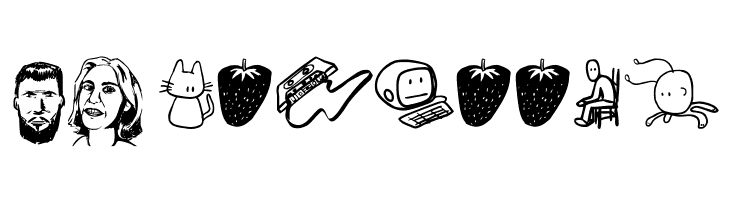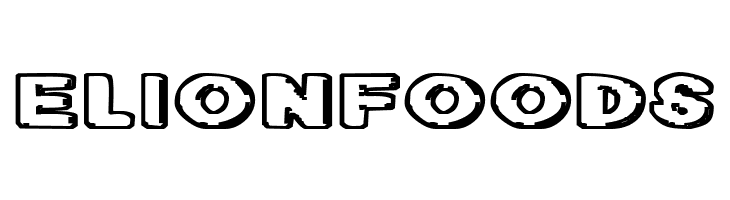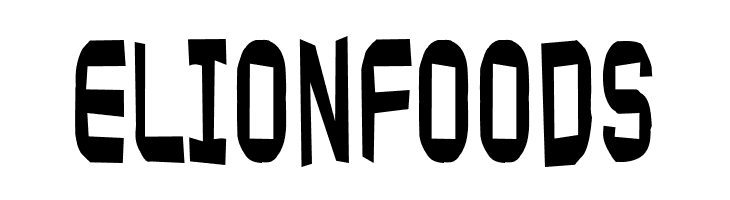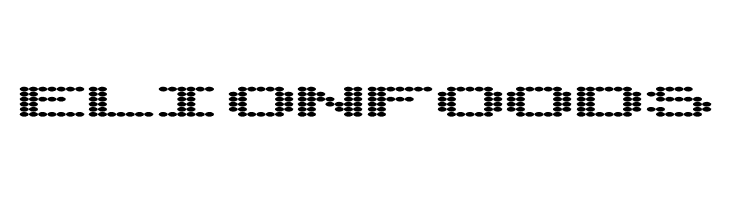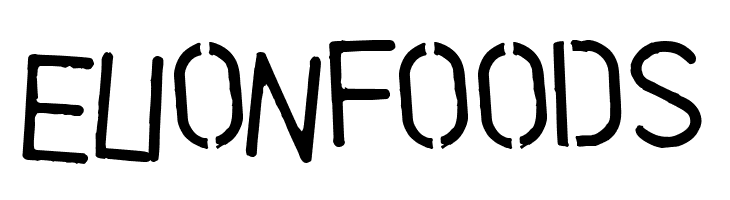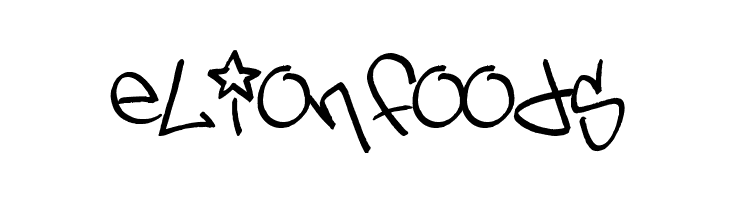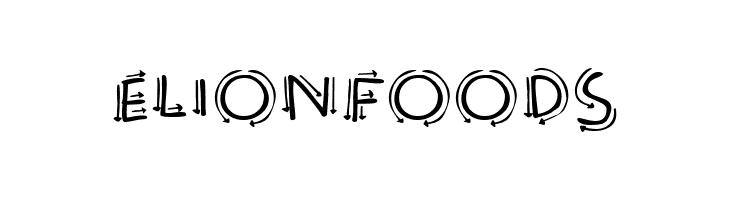
A playful set of hand-drawn doodles and illustrations with a quirky, cartoonish style.
A bold, playful font with quirky, irregular shapes and a hand-drawn feel.
A dot matrix style font with a digital, retro feel.
A bold, hand-drawn font with a rugged and organic style.
A bold, graffiti-inspired font with a playful and energetic style.
A playful, hand-drawn font with bold outlines and irregular shapes.
A hand-drawn, artistic font with elongated, narrow characters and a uniform stroke width.
A Blackletter font with festive Christmas symbols, ideal for vintage holiday designs.